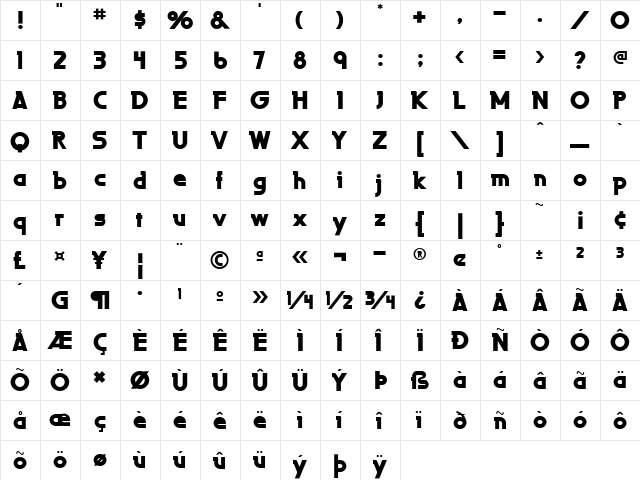
LaPerutaUltraFLF Regular
Design Context for LaPerutaUltraFLF Typeface
LaPerutaUltraFLF takes a measured approach to typography — its balanced proportions and neutral character make it a reliable workhorse for both digital and print work.